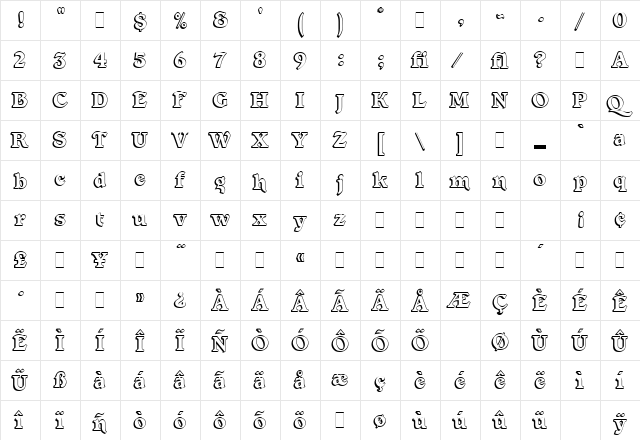
Forest Shaded LET Plain
Design Context for Forest Shaded LET Typeface
Forest Shaded LET takes a measured approach to typography — its balanced proportions and neutral character make it a reliable workhorse for both digital and print work.